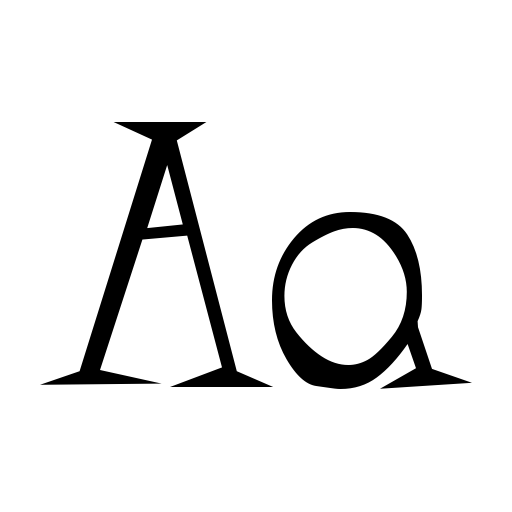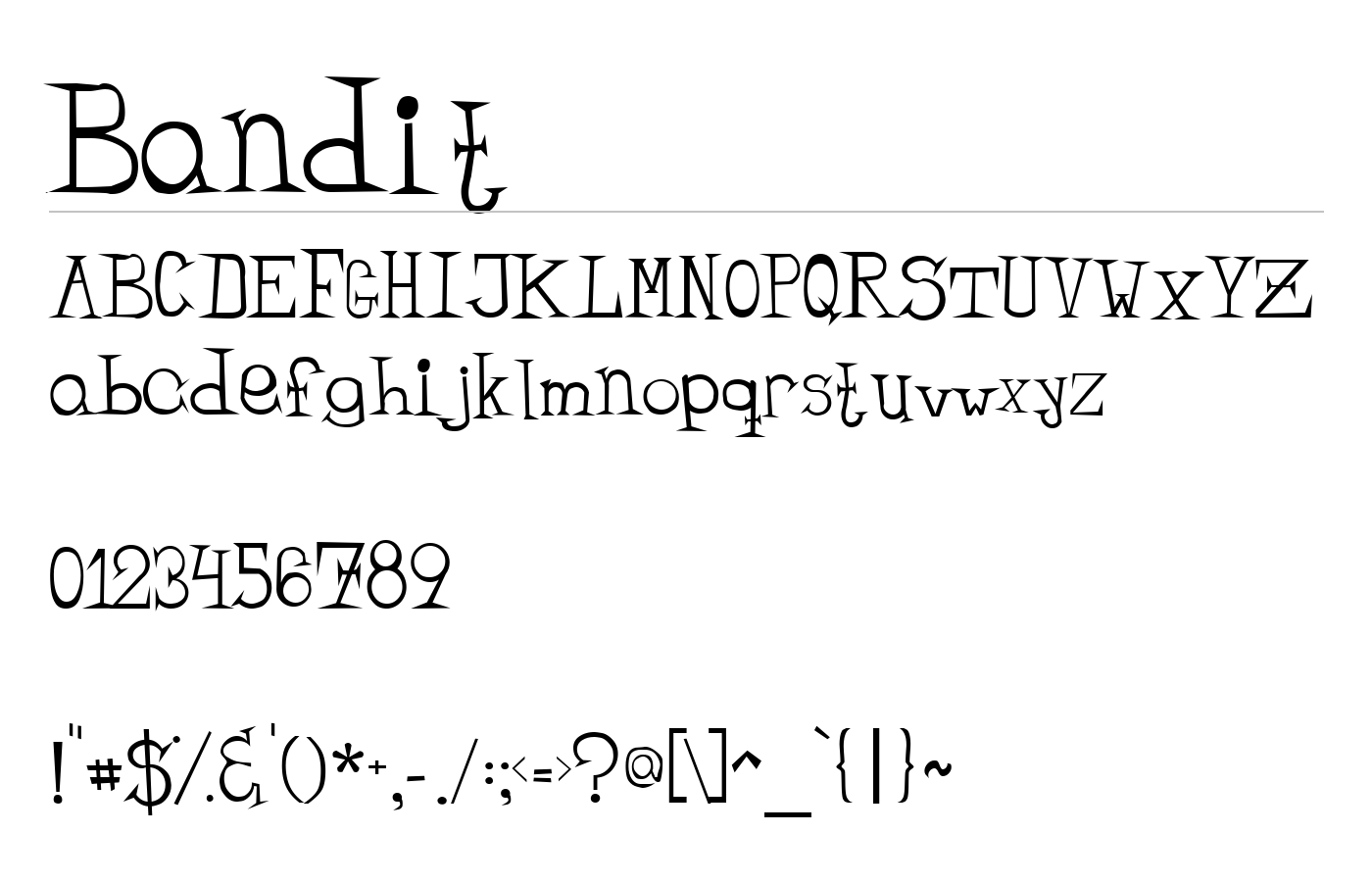
Bandit is a quirky serif font with a playful and slightly eerie vibe, featuring irregular and sharp serifs that give it a distinctive, hand-crafted feel. Its uneven strokes and whimsical letterforms make it ideal for creative, artistic projects or designs that want to convey uniqueness and character, especially in headings, posters, or editorial work with a fun or mysterious tone.
Bandit Font